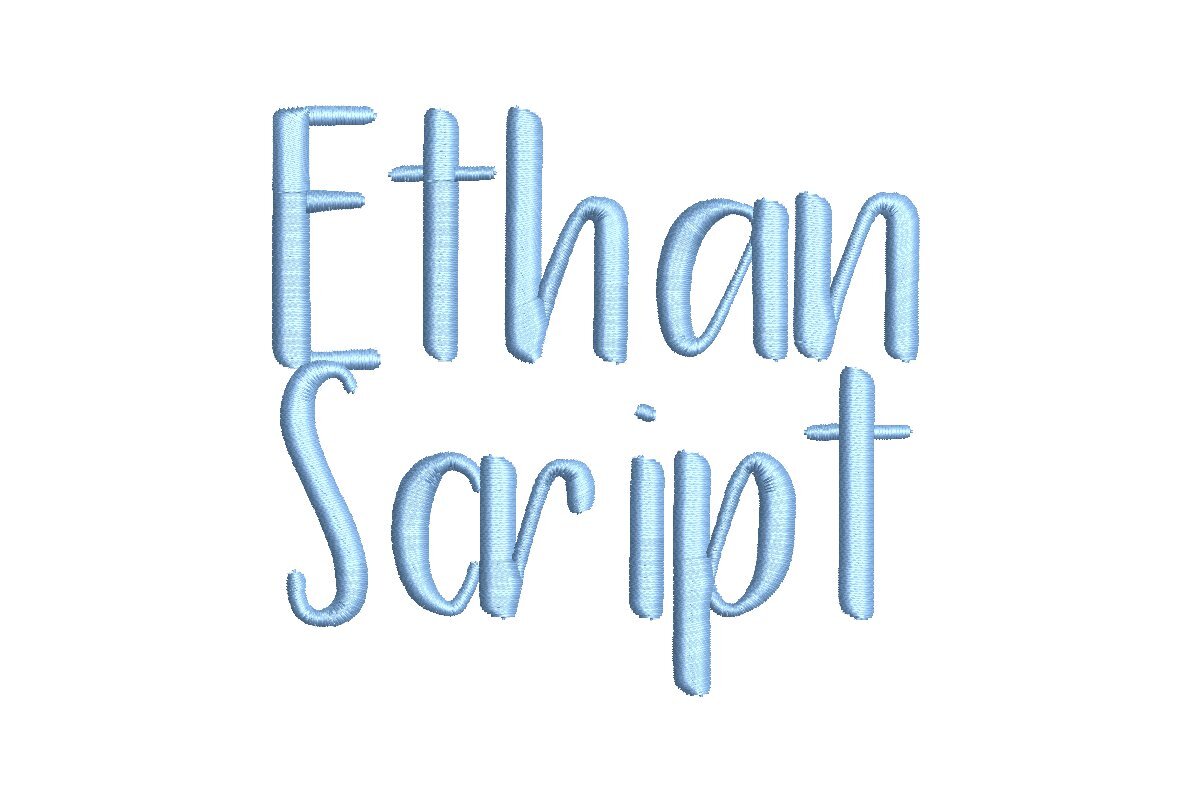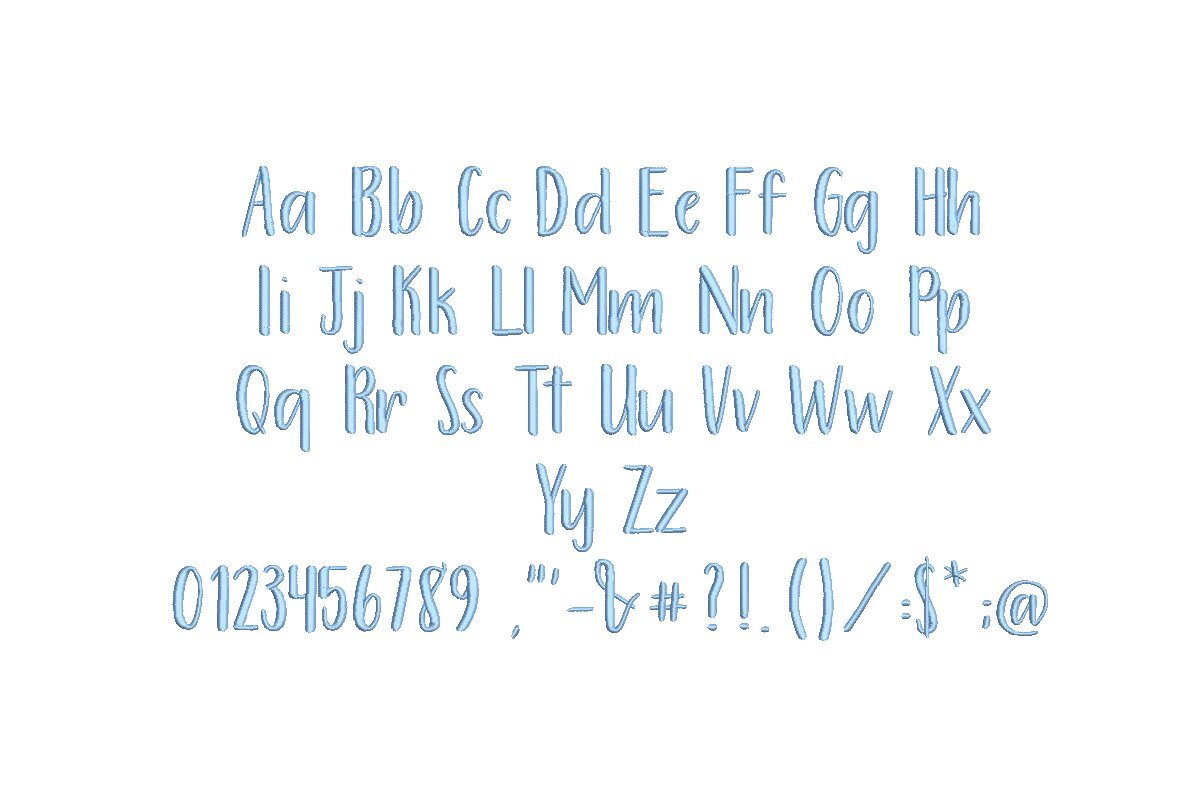
Introducing the Ethan Script ESA font, your gateway to sophisticated embroidery. Meticulously designed for seamless compatibility with Wilcom Studio e4.5.6 and Hatch 3 versions and up, this font effortlessly integrates into your digitizing process. Ethan Script ESA offers exquisite precision and versatility, perfect for monograms, elegant text, and intricate designs. Elevate your embroidery projects with its exceptional quality and timeless style. Craft professional and captivating designs effortlessly on various fabrics and items. Don't miss the opportunity to enhance your embroidery journey. Choose the Ethan Script ESA font today and unlock a world of creativity and precision with every stitch, setting new standards for your embroidery excellence.